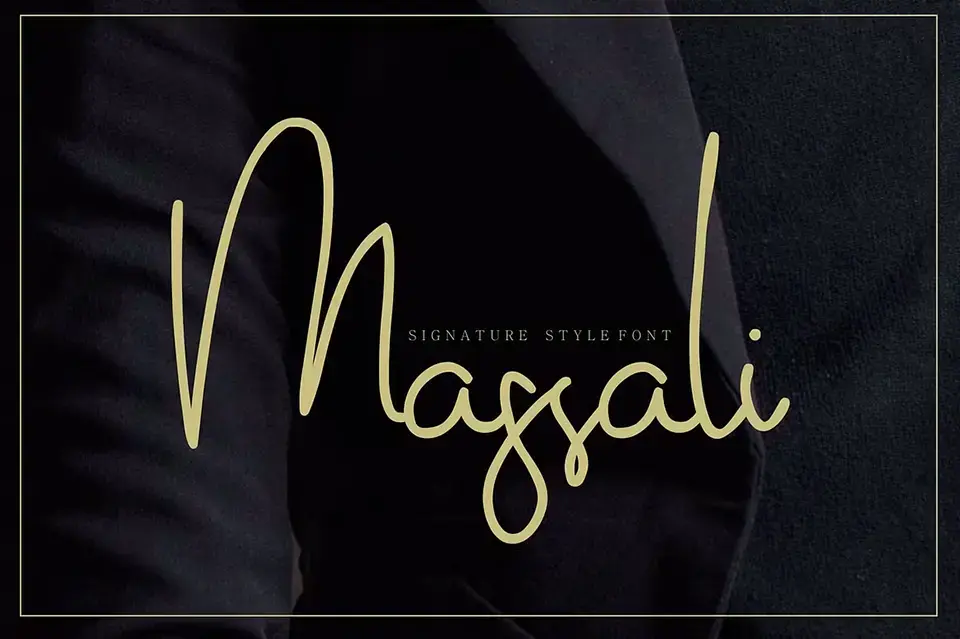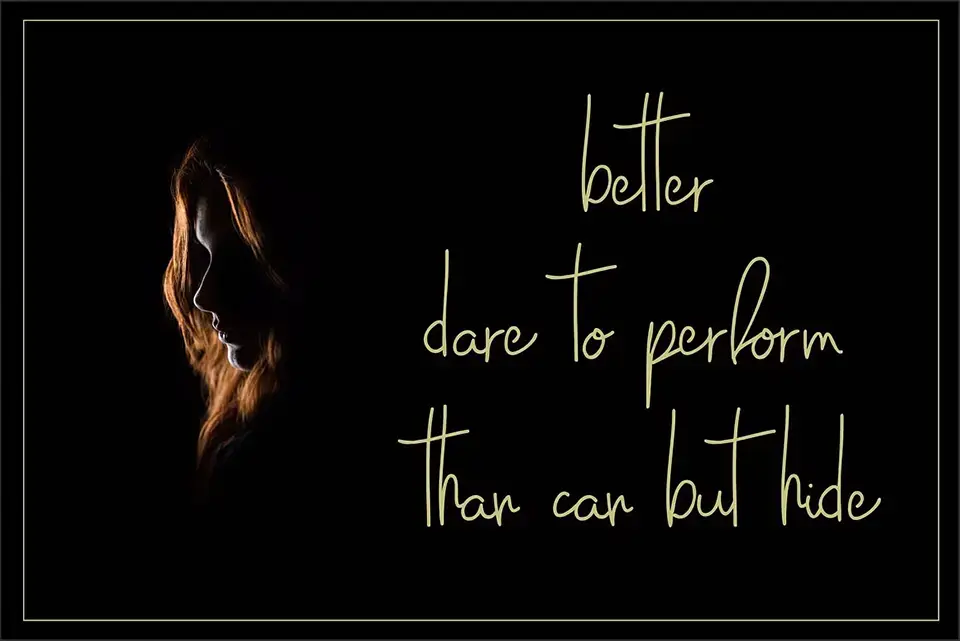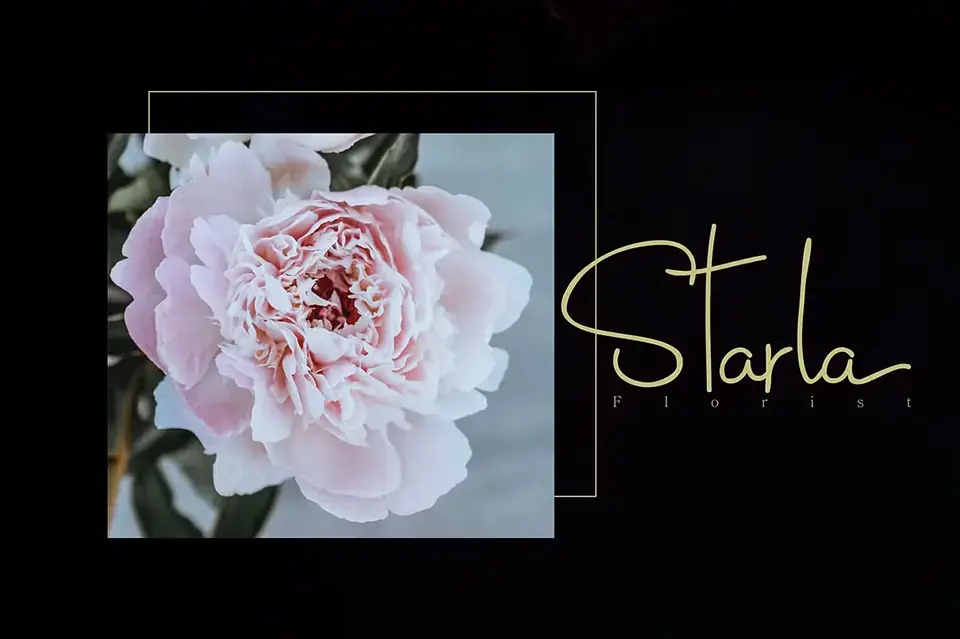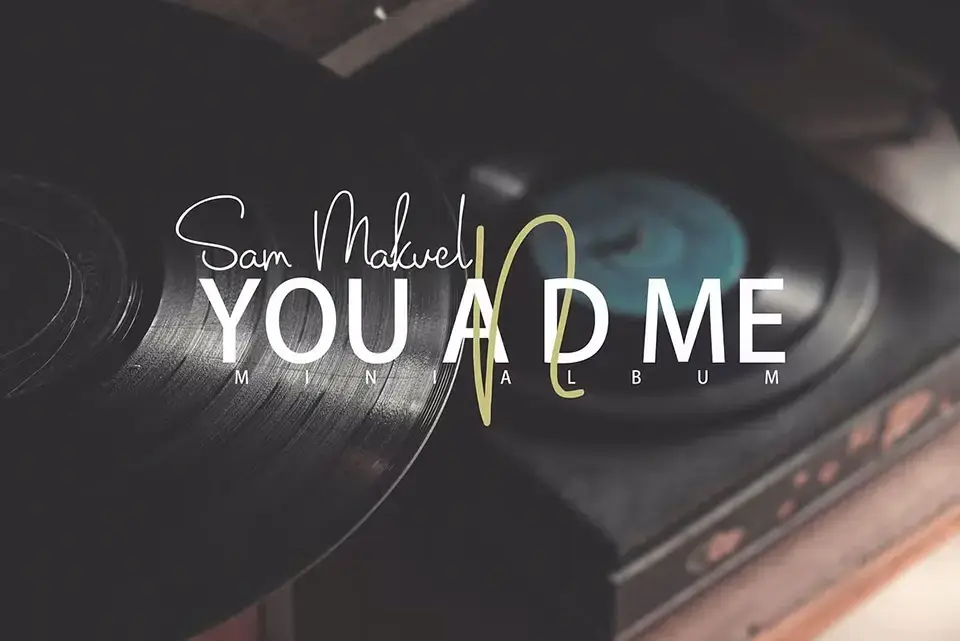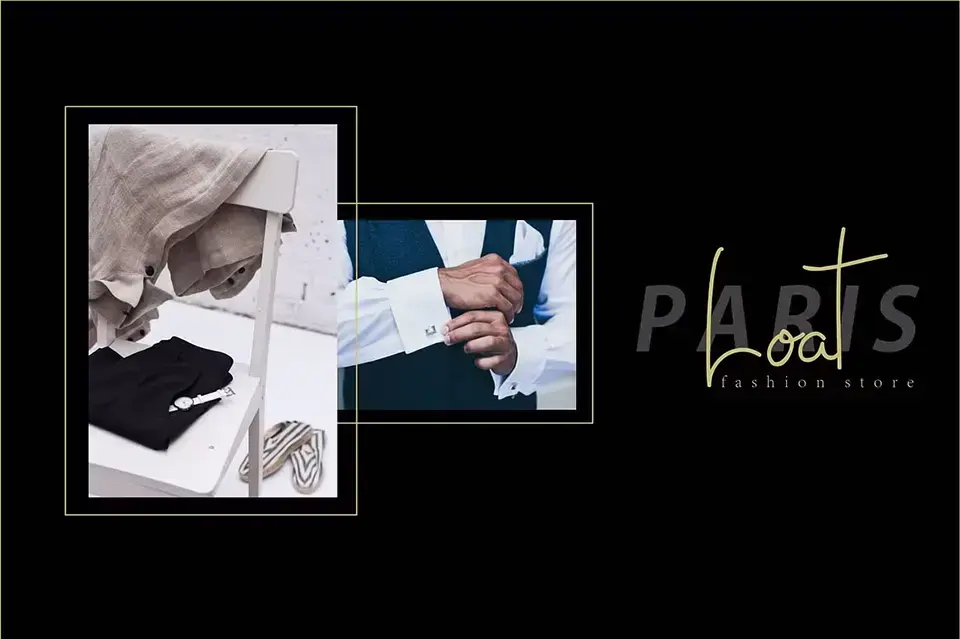
Massali Font
Massali is a sophisticated thin monoline script font that combines elegant handwritten charm with refined typography. Featuring ligatures, stylistic alternates, and flowing letterforms, this versatile typeface excels in signature-style applications, elegant branding projects, watermark photography, and premium design work. Its graceful, minimalist aesthetic makes it ideal for luxury invitations, business cards, logo design, and sophisticated display applications where elegance and readability are paramount.